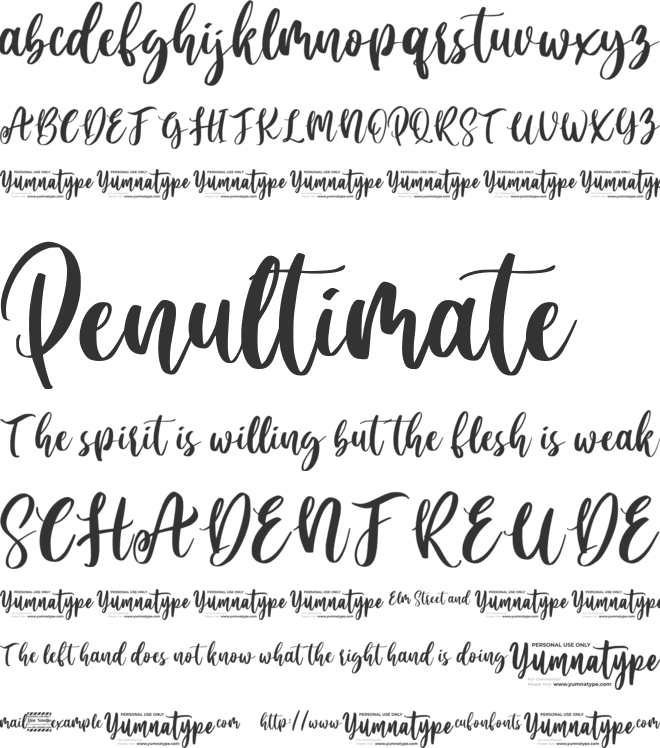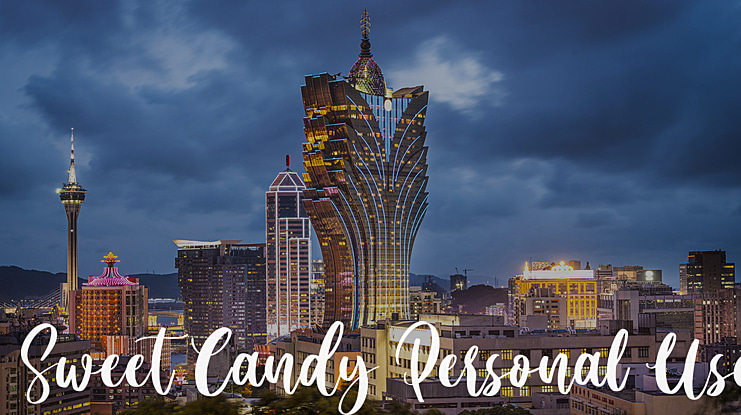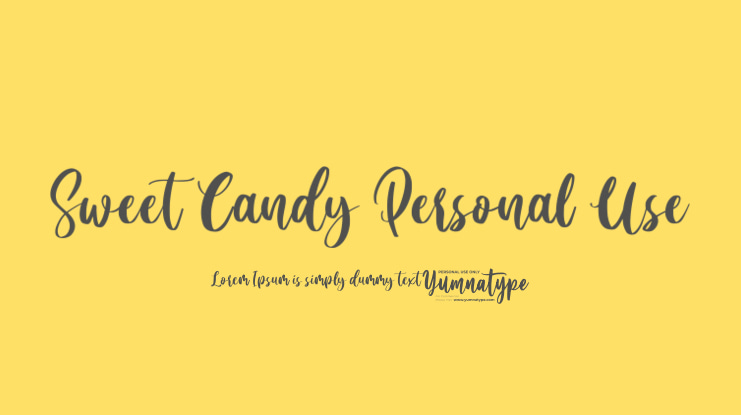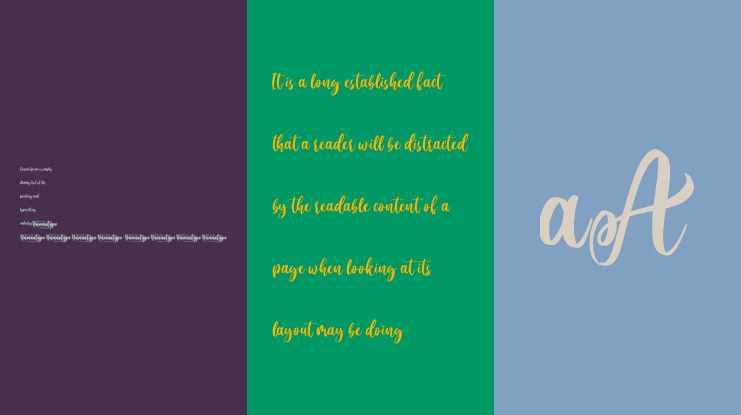
Say hello to Sweet Candy Script.
Sweet Candy is a beautiful and modern script.
It brings a beautiful and modern typeface that best used for weddings, branding, logotype, and quotes.